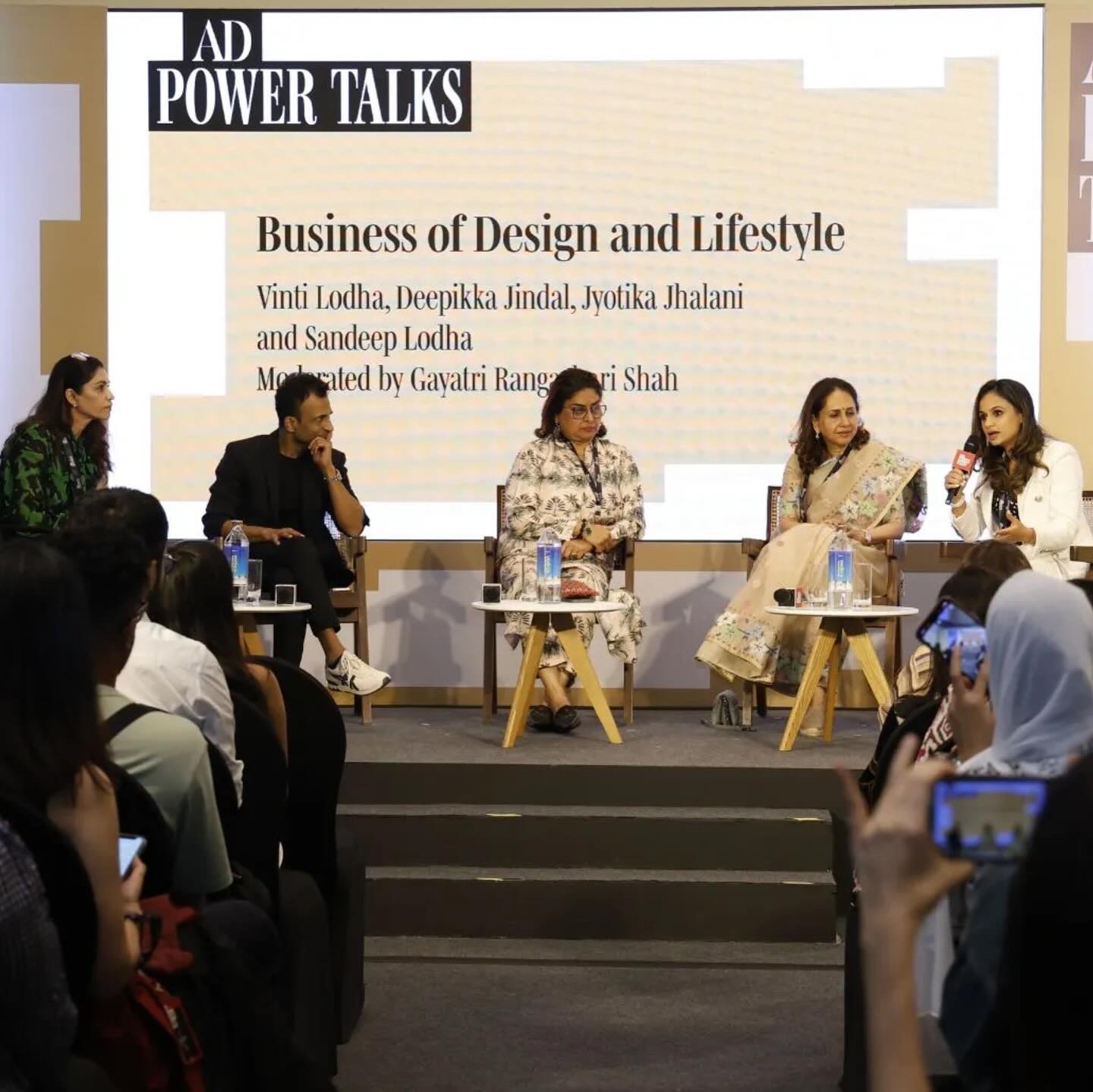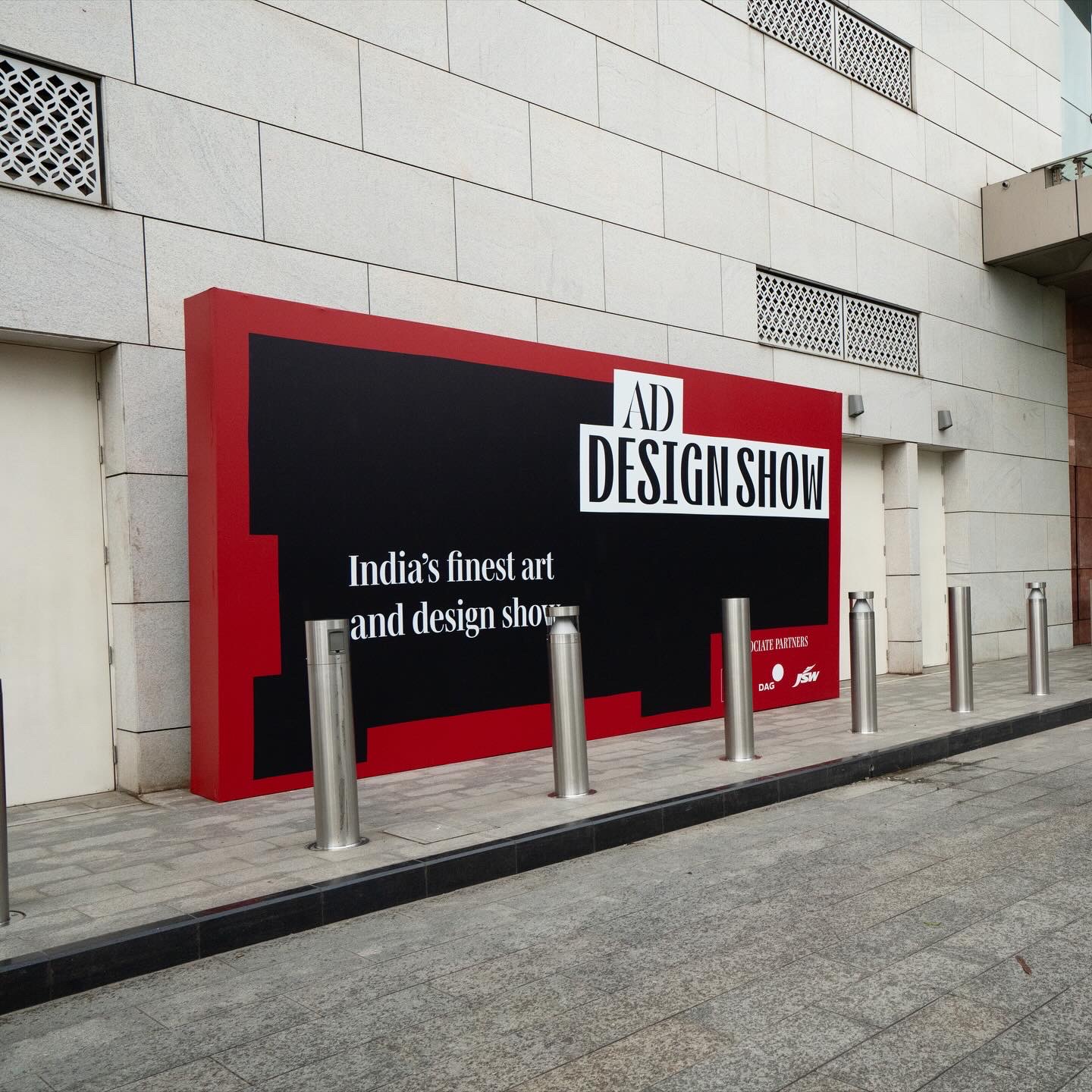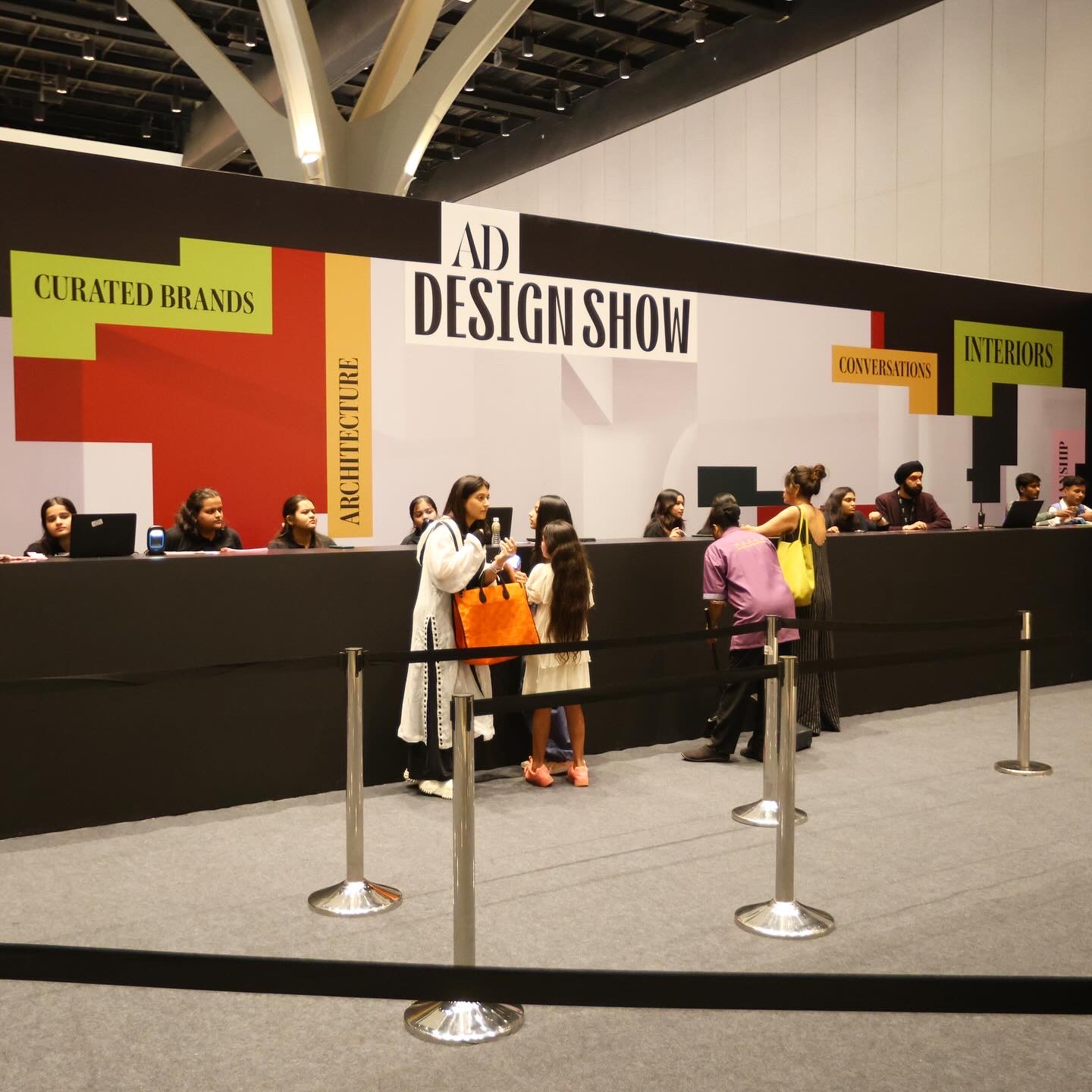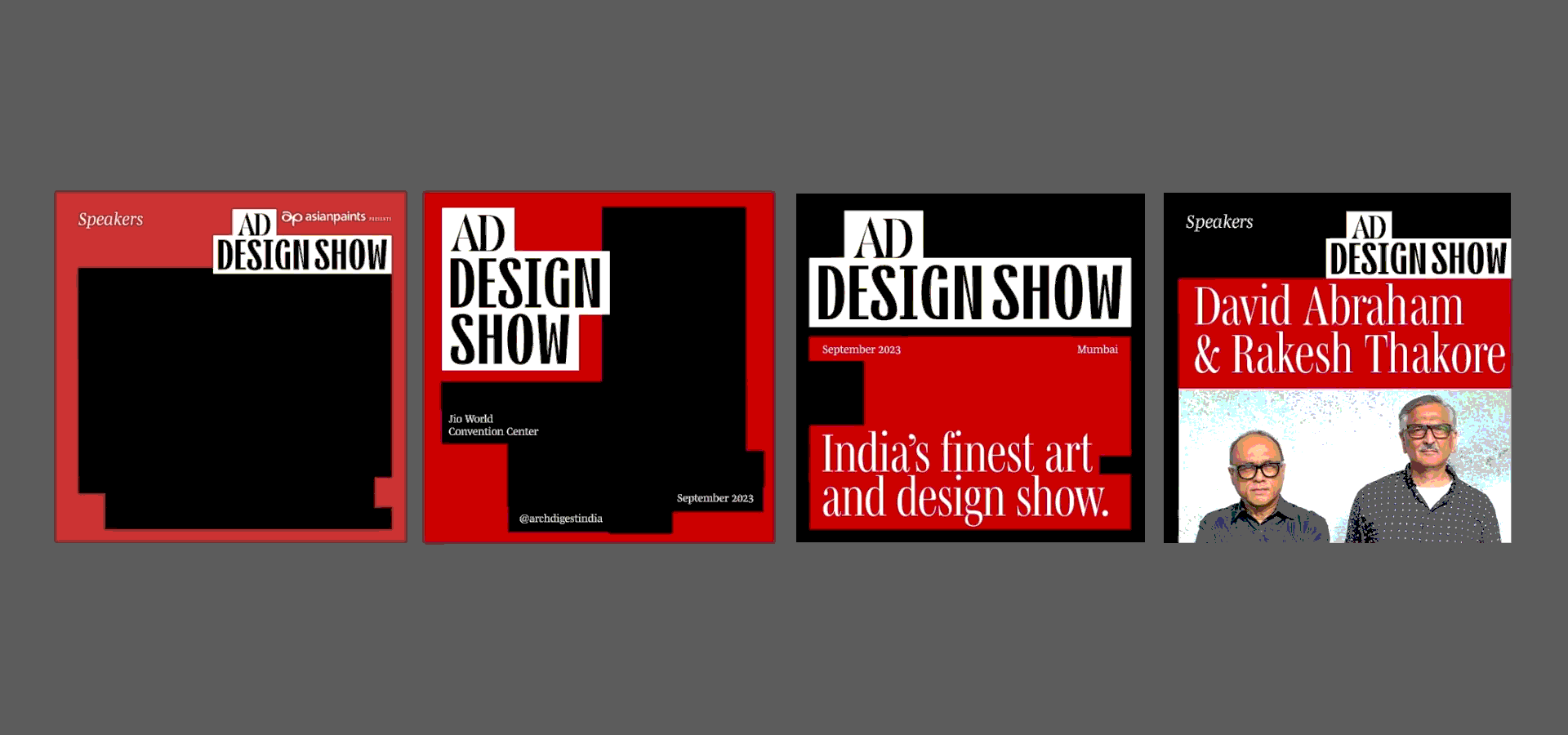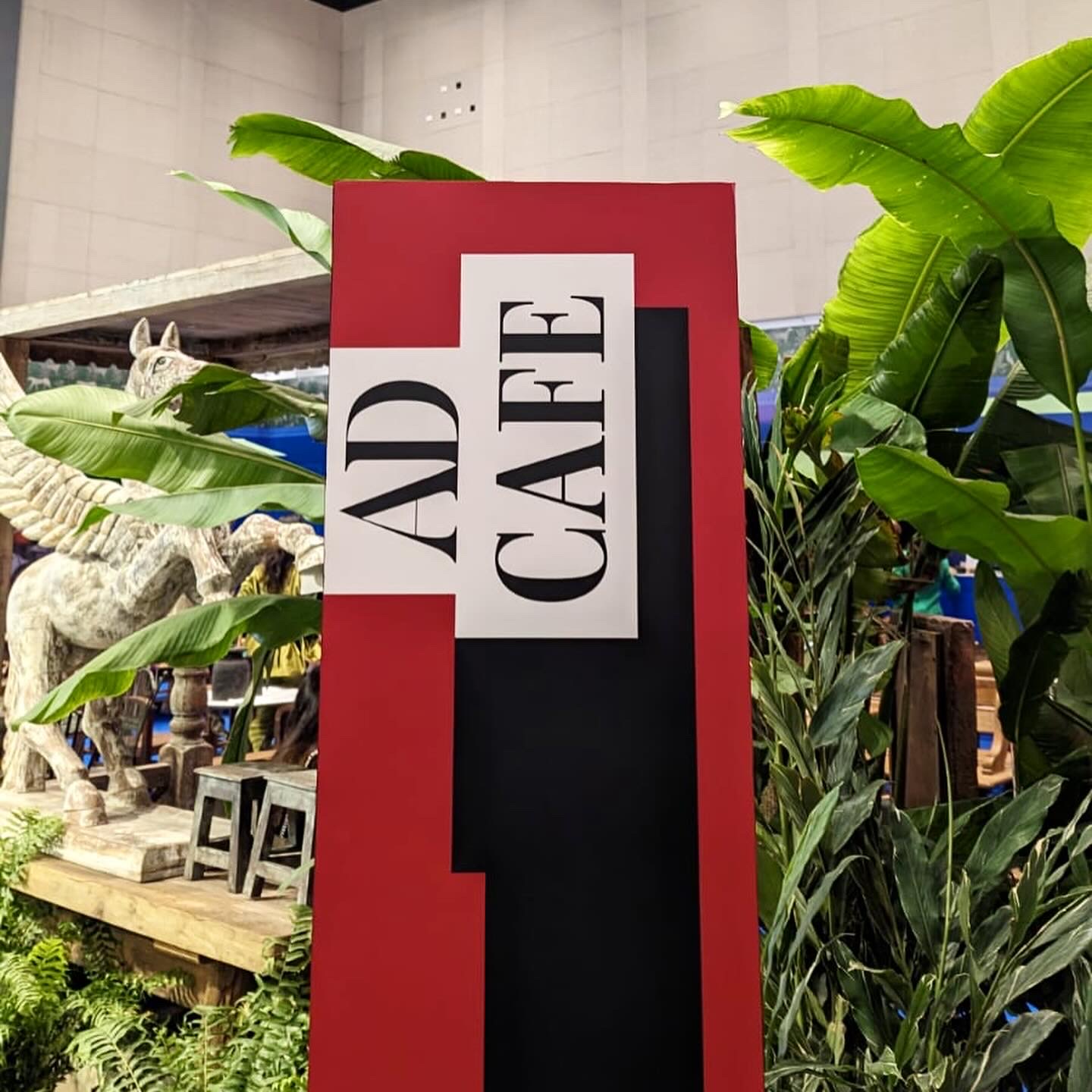
India’s finest art and design show, the AD Design Show takes over Mumbai every year, pulling together the brightest minds and brands in the realms of art, architecture, and design.
Working closely with the AD team we designed a logo and identity system based on the idea of a ‘floor plan’. The idea that so many people come under one roof for the show that culminates in one piece of architectural design. The ‘floor plan’ is dynamic and ever changing just like the ideas discussed at the event.
The AD team then took the visual language forward to create event collateral.
Working closely with the AD team we designed a logo and identity system based on the idea of a ‘floor plan’. The idea that so many people come under one roof for the show that culminates in one piece of architectural design. The ‘floor plan’ is dynamic and ever changing just like the ideas discussed at the event.
The AD team then took the visual language forward to create event collateral.
Custom type logo design for MyRealTrip.
Founded in 2012, MyRealTrip is Korea’s leading online travel platform, helping Koreans to travel abroad. The company started by focusing on helping tourists find tour guides and tickets for holiday attractions. Over 8 million users have planned trips using MyRealTrip since its inception and the company offers over 10,000 products for domestic travels and over 23,000 products for overseas travels across 780 cities worldwide.
Identity, website design and development for YLabs Climate x Sexual and Reproductive Health framework.
The purpose of the framework is to highlight the impact that climate change has on sexual and reproductive health. We wanted the design to feel light and add just enough visual interest without distracting from the hero that is the framework.
Man Vs Calcutta is a display all-caps typeface that draws inspiration from the engravings I encountered in a church in Calcutta. As photography was not allowed in the church, I had to rely on my memory to bring the intricate designs to life in my typeface.
Originally, the project started as a casual sketch of a few letters, but my passion for the project quickly snowballed into a full-fledged typeface design. The end result was an unexpected yet delightful outcome of my determination and fascination with the Calcutta church engravings.
I hope this typeface captures the beauty and intricacy of the original engravings while also serving as a functional and visually compelling font for all your design needs.
Originally, the project started as a casual sketch of a few letters, but my passion for the project quickly snowballed into a full-fledged typeface design. The end result was an unexpected yet delightful outcome of my determination and fascination with the Calcutta church engravings.
I hope this typeface captures the beauty and intricacy of the original engravings while also serving as a functional and visually compelling font for all your design needs.
Typefaces
Collaborating with Anomaly Brands, we developed a logo for Full Circle, a Bangalore-based restaurant and bar.
Inspired by the art displayed in the space, the logo features a goblet symbol and unique typography. To ensure the logo looks great at any size, we created a variable design with a slider that adjusts the contrast and letter spacing for optimal legibility.
Whether used at a large scale or small, the Full Circle logo will remain distinctive and eye-catching.